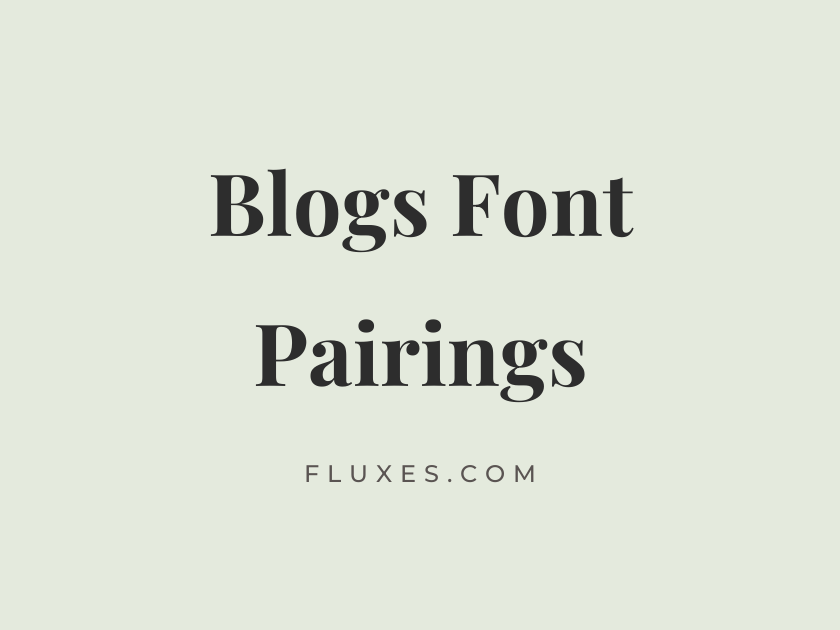
36 Best Font Pairings for Blogs
Blogs live or die on readability, but they also need personality at the top of the post to earn the click and the scroll. The pairings below balance a distinctive headline font against a body face that stays comfortable across paragraphs of text, so posts feel designed without slowing readers down. Whether the blog is personal, editorial, technical, or visual, there is a Google Fonts combination here suited to the tone.
Editorial and long-form blogs
Playfair Display brings the high-contrast drama of a magazine headline, while PT Sans keeps paragraphs neutral and easy to scan, a reliable split between display and text roles.
1. Playfair Display + PT Sans
Merriweather was drawn specifically for on-screen reading, and Open Sans shares its generous x-height, so the two sit together without any adjustment to line spacing or size.
2. Merriweather + Open Sans
Libre Baskerville has an old-style warmth that suits personal essays, and Lato’s low-contrast strokes keep long paragraphs from feeling heavy.
3. Libre Baskerville + Lato
Spectral was built for digital reading with an editorial voice, and Work Sans adds a plain, contemporary counterpoint, a pairing that suits opinion pieces and reported features alike.
4. Spectral + Work Sans
Newsreader was modeled on the serif faces used in print journalism, which makes it a natural headline choice for reported or analytical blogs; Inter’s neutrality lets the reporting speak for itself in the body.
5. Newsreader + Inter
6. Cormorant Garamond + Nunito Sans
Crimson Text reads like a well-set novel, which suits confessional or reflective writing, while Nunito Sans keeps the surrounding interface friendly and current.
7. Crimson Text + Nunito Sans
Cabin’s humanist warmth works well as a heading font for cozy, conversational blogs, and Merriweather underneath gives the actual reading a bit more literary weight than an all-sans layout would.
8. Cabin + Merriweather
Rubik’s rounded corners feel approachable at large sizes, and Lora’s moderate contrast makes it a comfortable, unobtrusive partner for paragraph text.
9. Rubik + Lora
Quicksand’s soft geometry suits craft, wellness, or parenting blogs looking for a gentle tone, and PT Serif grounds that softness with a body face that still reads as serious.
10. Quicksand + PT Serif
Barlow’s condensed proportions save space in a heading without sacrificing personality, and Vollkorn’s warm serif shapes keep the body text inviting rather than clinical.
11. Barlow + Vollkorn
Nunito’s rounded, friendly shapes make it an easy heading choice for family or lifestyle blogs, and PT Serif’s traditional structure balances that casualness with a bit of authority in the text.
12. Nunito + PT Serif
Raleway’s elegant, slightly geometric letterforms make a clean lifestyle headline, and Lora’s calligraphic roots keep the body from feeling too austere.
13. Raleway + Lora
14. Abril Fatface + PT Sans
Fraunces has enough quirk in its serifs to feel handcrafted, which suits design and creative writing blogs, and Karla’s straightforward geometry keeps the body legible without flattening that character.
Check that the body font holds up at the size you actually use for paragraphs, not just in a large preview, since x-height and letter spacing matter more at 16 to 18 pixels.
If two fonts feel too similar in mood, lean into more contrast in weight or style rather than switching both fonts at once.
Test pairings on your actual homepage template, since a combination that looks good in an isolated headline can feel busy once sidebars, tags, and captions are added.